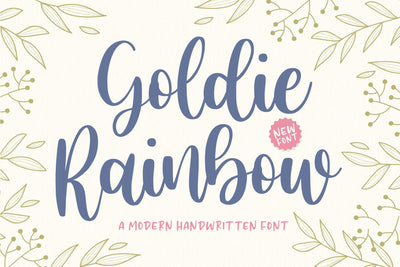
Goldie Rainbow Modern Handwritten Font
Proudly Present, Goldie Rainbow Font.
Goldie Rainbow is a Modern Handwritten Font.
Goldie Rainbow is perfect for product packaging, branding project, megazine, social media, wedding, or just used to express words above the background.